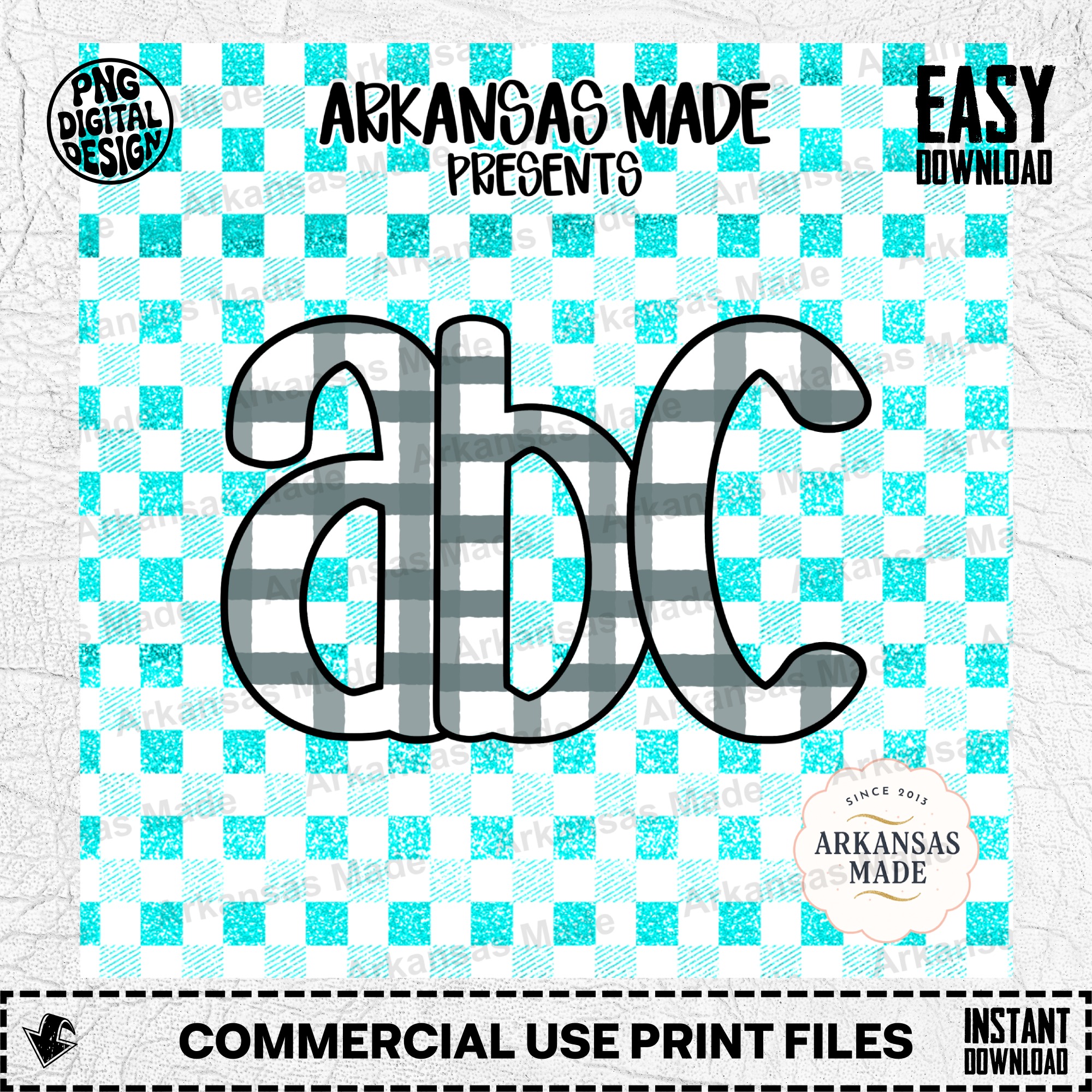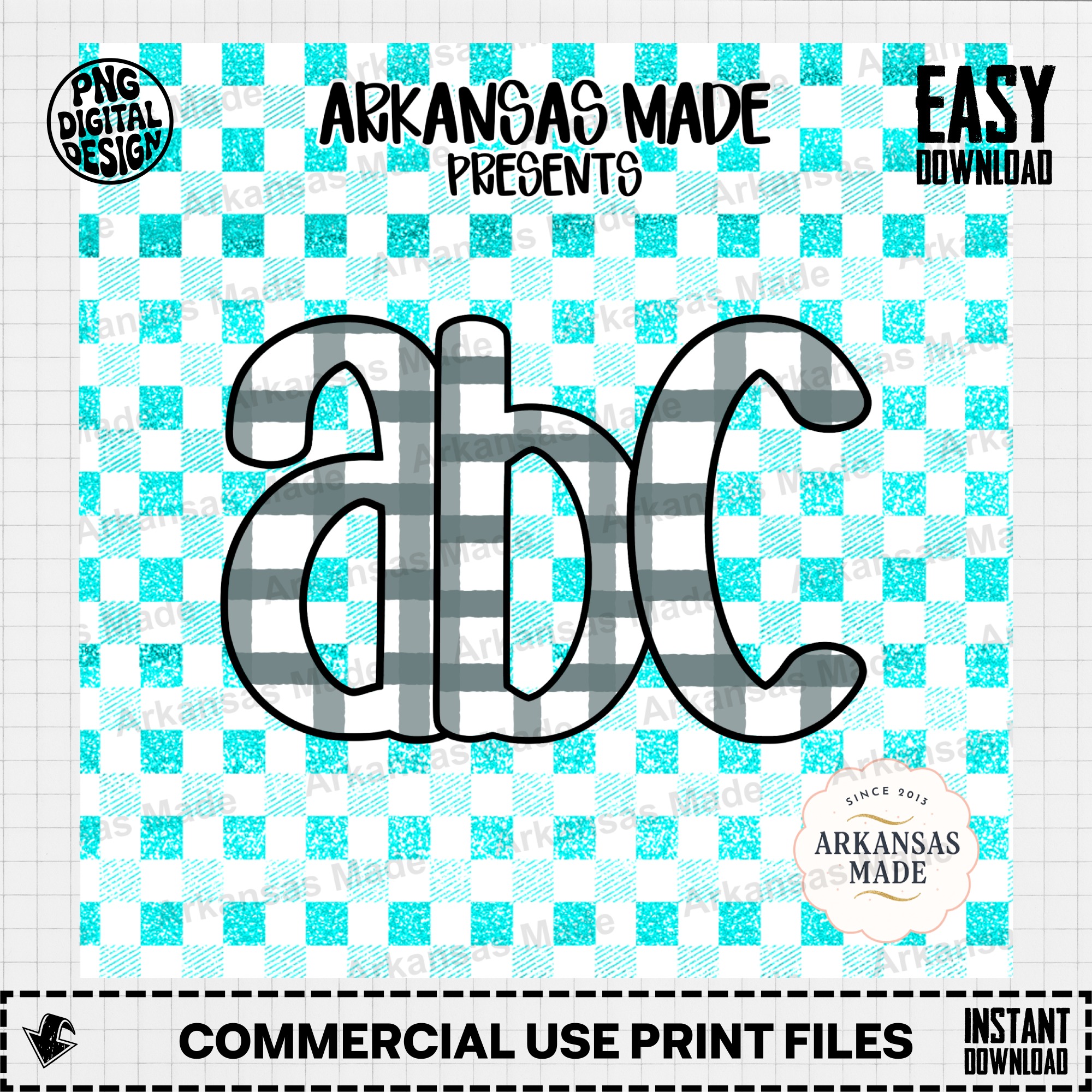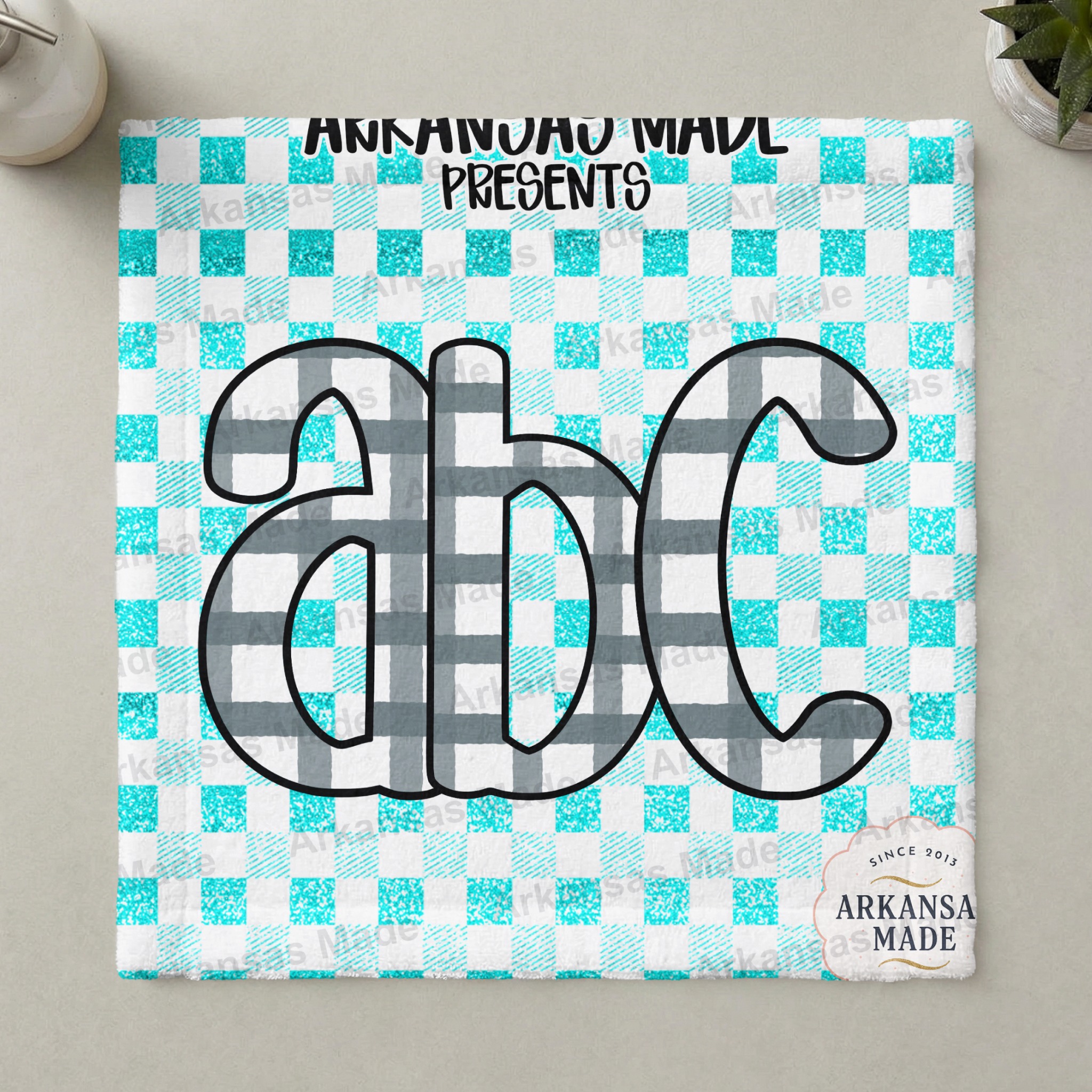
Teal Gray Faux Glitter Plaid Alpha Set Digital Download – PNG SVG Letters Font for Cricut Sublimation Crafts
Elevate your designs with this vibrant Teal Gray Faux Glitter Plaid Alpha Set Digital Download, perfect for Cricut, sublimation, and all your crafting needs! This charming set features a cozy buffalo plaid pattern with a modern faux glitter touch, ideal for creating unique projects. Perfect for crafters, teachers, and small business owners, use these PNG SVG letters for personalized gifts, nursery decor, or stylish T-shirt designs. Add a rustic yet cheerful vibe to your next creation!